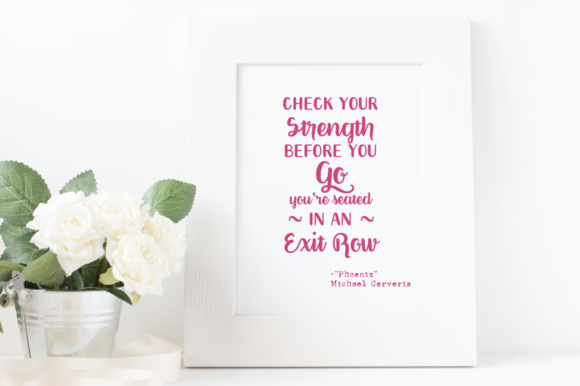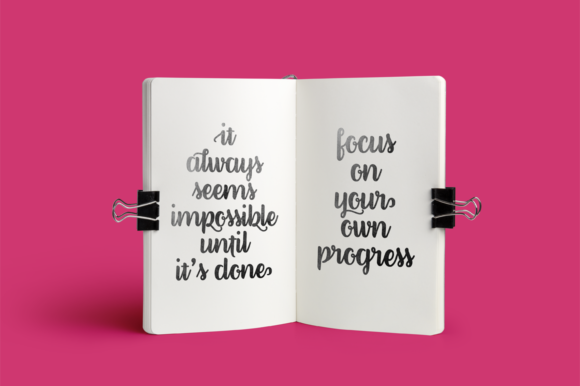
Better Phoenix Font
db-ku.com - Script & Handwritten -- Better Phoenix is a polished brush font with stylistic alternates, swashes, and ligatures. It was carefully constructed from handmade brush strokes to have smooth lines and clean structure but keep the playfulness of a handmade script font.